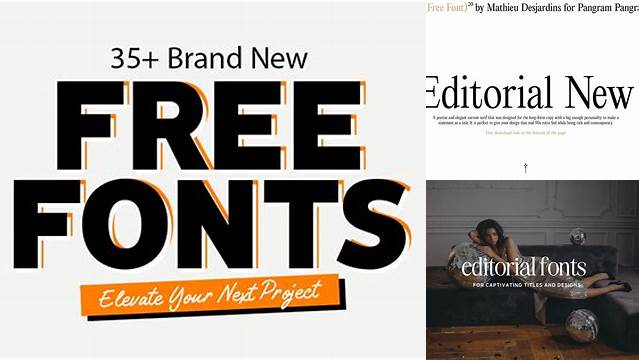
Editorial New Font: Free Download & Design Guide
Editorial New Font Free Download: Elevate Your Design with Style
Hey design enthusiasts! Are you on the hunt for a fresh, captivating typeface to spice up your projects? Look no further, because we're diving headfirst into the world of Editorial New Font free download, a font that's been making waves in the design community. This article is your ultimate guide to everything you need to know about this stylish font: its features, where to download it, how to use it, and tips to maximize its impact. Ready to give your designs a serious upgrade? Let's jump in!
What Makes Editorial New Font Special?
First off, what exactly is Editorial New Font? This font is more than just a collection of letters and symbols; it's a statement. Designed with elegance and readability in mind, Editorial New Font is a versatile typeface that seamlessly blends classic aesthetics with modern sensibilities. Imagine the sophisticated air of a high-end magazine or the sleek look of a cutting-edge website – this is the kind of vibe this font effortlessly brings to the table.
One of the things that make Editorial New Font stand out is its exceptional legibility. Whether you're crafting headlines, body text, or captions, this font ensures your message is crystal clear. The carefully considered letterforms are designed to be easy on the eyes, making it perfect for both print and digital applications. This is especially crucial if you're working on long-form content or projects that require extensive reading.
But it's not just about readability; Editorial New Font has a distinctive personality. It strikes the perfect balance between being formal and approachable. This quality makes it incredibly adaptable to a wide range of design projects. Need a font for a professional business report? Editorial New Font has you covered. Working on a chic blog post? It's a fantastic choice. Creating marketing materials? The font will give your content a polished look that will attract attention. The versatility of Editorial New Font is what makes it a designer's dream. It's the sort of font that effortlessly elevates your work, making it appear both professional and visually appealing.
In the design world, having the right tools is half the battle. Choosing Editorial New Font means you’re equipping yourself with a tool that brings sophistication and readability to your work. Think about the times you’ve scrolled through content and instantly judged the quality of a design based on the font choices. Editorial New Font empowers you to create designs that capture attention immediately. And let's face it, we all appreciate a great font, so why not make your designs the best they can be?
How to Use Editorial New Font Effectively
So, you've got your Editorial New Font free download all set up – awesome! Now, let's talk about how to use it to its full potential. Effective font usage is more than just choosing a pretty font; it’s about understanding how it complements your design and enhances your message. Here’s how to make Editorial New Font work magic in your projects.
First off, consider your design’s purpose. Are you creating a headline, a body of text, or a combination of both? For headlines, you can use Editorial New Font to grab attention and set the tone of your design. Experiment with different sizes and weights to create a bold statement. For body text, opt for a slightly smaller size that still ensures readability. The goal is to make the text inviting and easy to digest.
Whether you're creating a website, a print ad, a blog post, or any other design project, Editorial New Font is a fantastic choice. Its elegance and versatility make it suitable for a wide range of applications. So, go ahead, download Editorial New Font, and let your creativity soar! With the right approach, you'll be creating designs that are not only visually stunning but also incredibly effective.